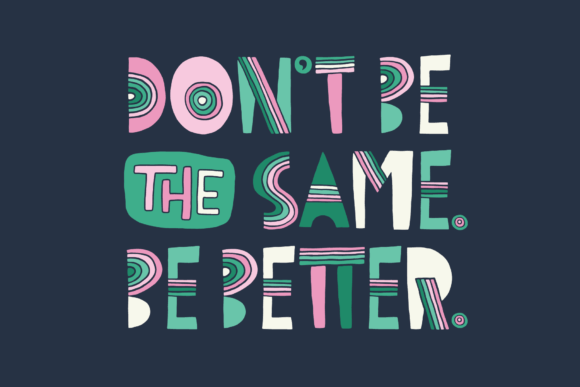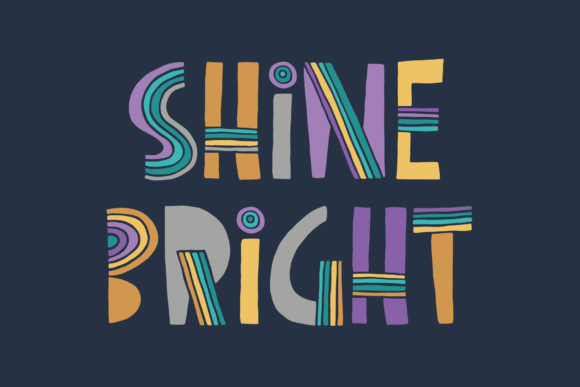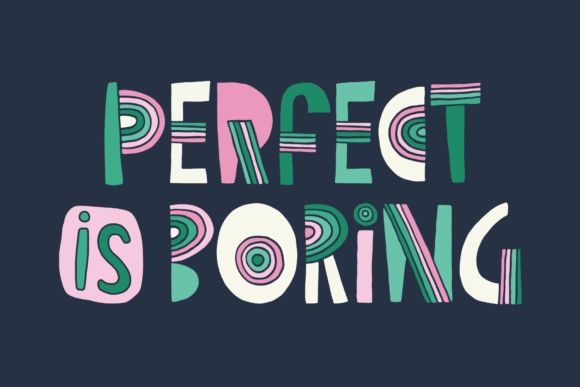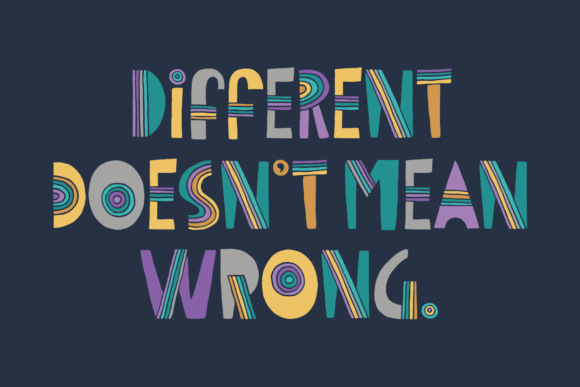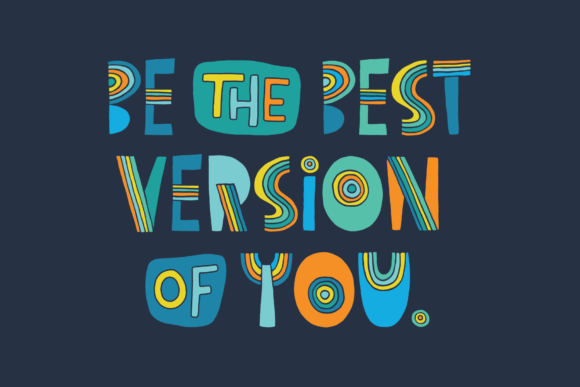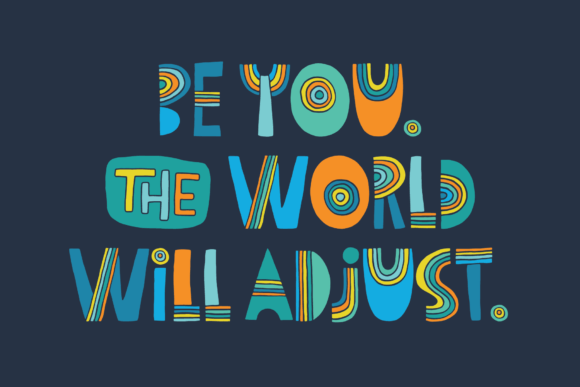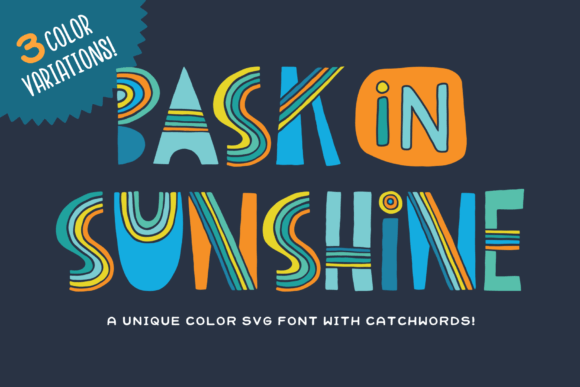
Bask in Sunshine Font: A Charming Hand-Drawn Color Font for Designers and Crafters
Are you looking for a unique and charming font to add a personal touch to your designs? Look no further than the Bask in Sunshine font, a beautiful hand-drawn color font that is sure to brighten up any project. In this article, we’ll take a closer look at the features and benefits of this lovely font, and explore how you can use it to take your designs to the next level.
What is Bask in Sunshine Font?
Bask in Sunshine is a one-of-a-kind, hand-drawn color font that is perfect for designers and crafters who want to add a touch of personality to their work. This font is not just a simple collection of letters and numbers – it’s a fully-featured font that includes ligatures, catchwords, and swashes, making it ideal for a wide range of design projects.
Key Features of Bask in Sunshine Font
- Hand-drawn with love and care: Each letter and glyph has been carefully crafted by hand, giving the font a unique and charming feel.
- Automatic ligatures: When used in programs that support OpenType and have the feature turned on, ligatures will appear automatically, adding a touch of elegance to your text.
- Catchwords and discretionary ligatures: Use the glyphs panel or discretionary ligatures to access a range of catchwords and ligatures, allowing you to add even more personality to your designs.
Tips and Tricks for Using Bask in Sunshine Font
To get the most out of Bask in Sunshine, here are a few tips and tricks to keep in mind:
- Experiment with different colors: Because Bask in Sunshine is a color font, you can use it to add a pop of color to your designs. Try experimenting with different colors and combinations to find the perfect look for your project.
- Use ligatures and catchwords: Take advantage of the font’s ligatures and catchwords to add a touch of personality to your text. These can be especially useful for creating eye-catching headlines or titles.
- Don’t be afraid to get creative: Bask in Sunshine is a versatile font that can be used for a wide range of design projects, from invitations and greeting cards to logos and branding materials. Don’t be afraid to get creative and try out new and interesting uses for the font.
Bask in Sunshine is a unique and charming hand-drawn color font that is sure to add a touch of personality to any design project. With its automatic ligatures, catchwords, and swashes, this font is perfect for designers and crafters who want to create beautiful and eye-catching work. Whether you’re a seasoned pro or just starting out, Bask in Sunshine is a great addition to any design toolkit.